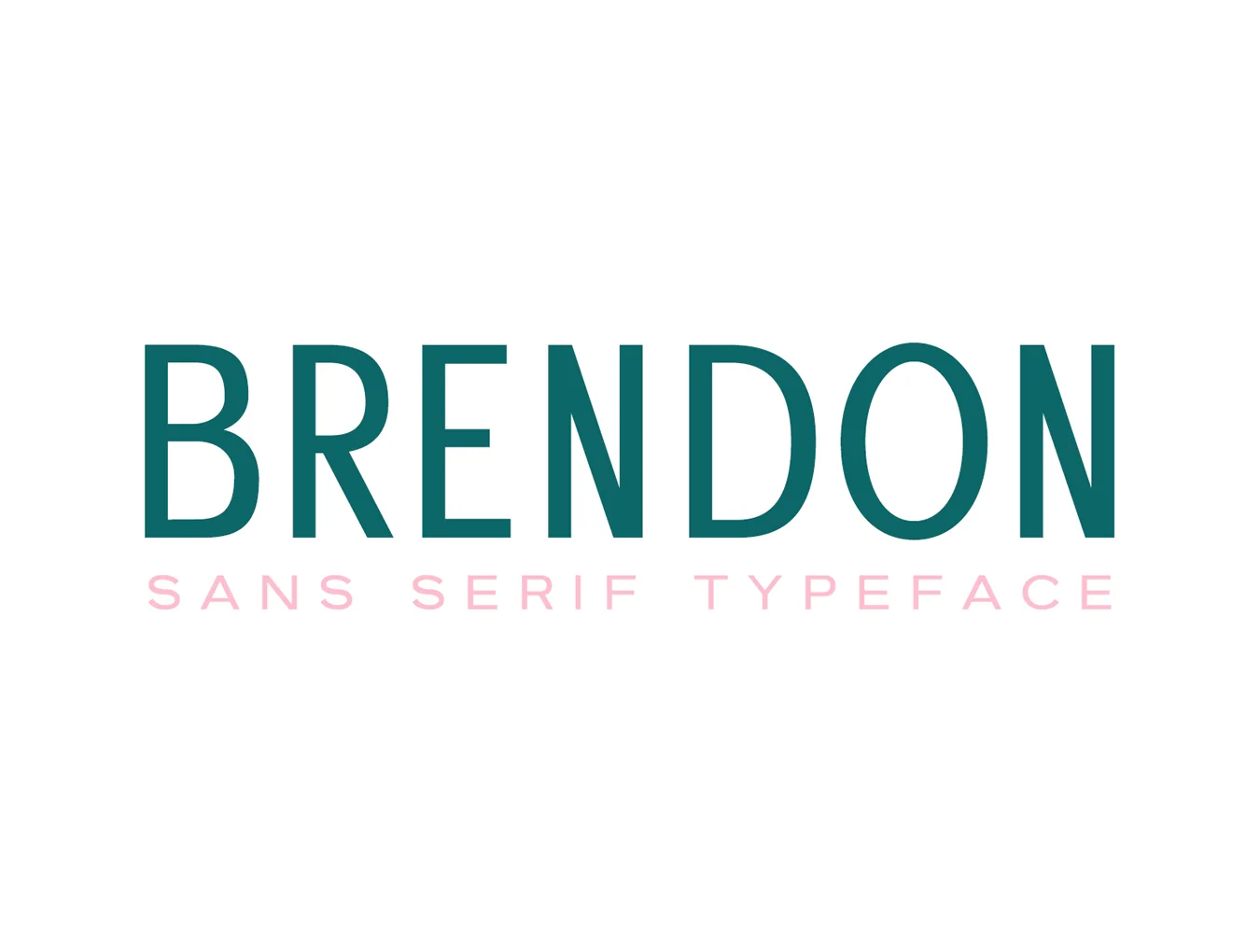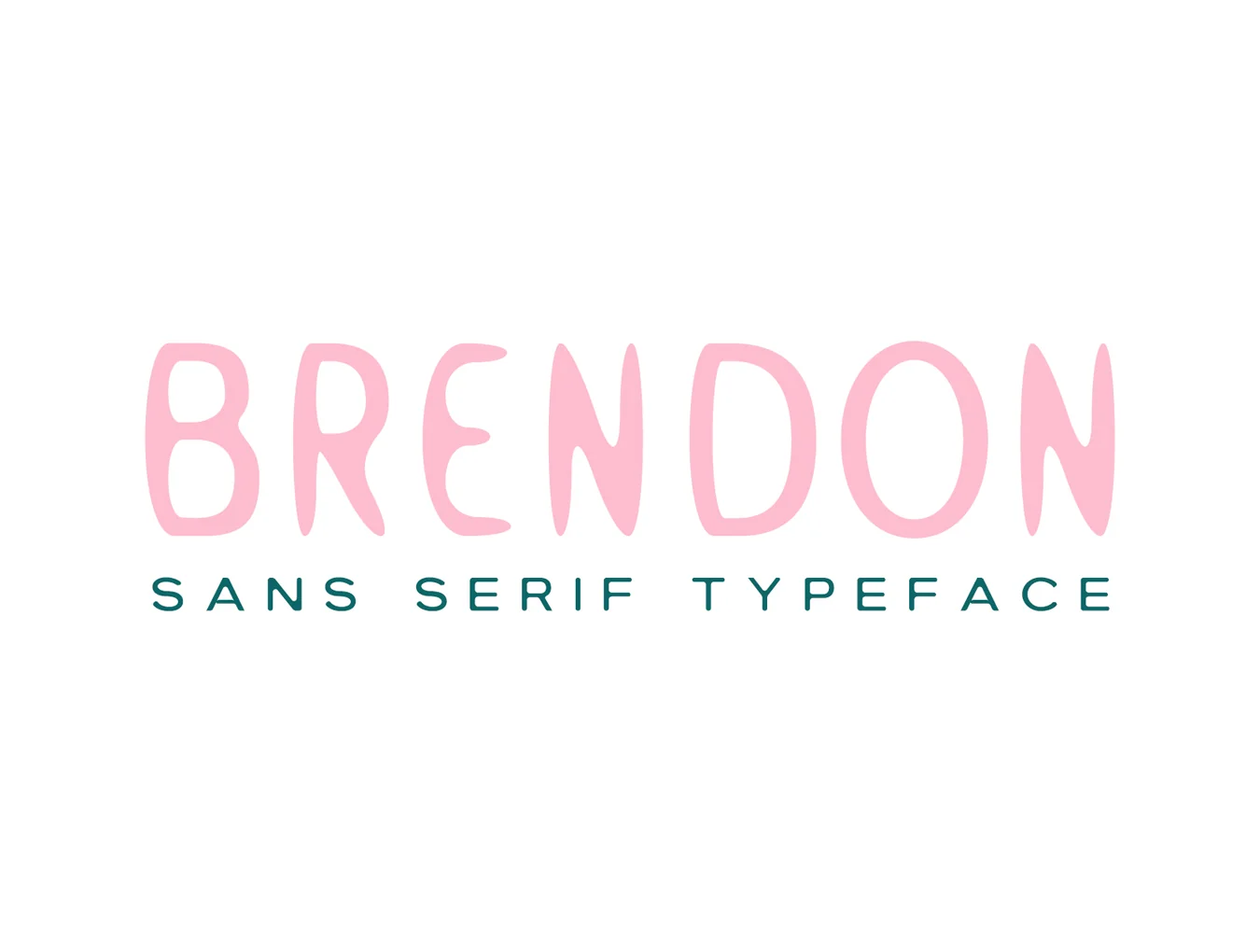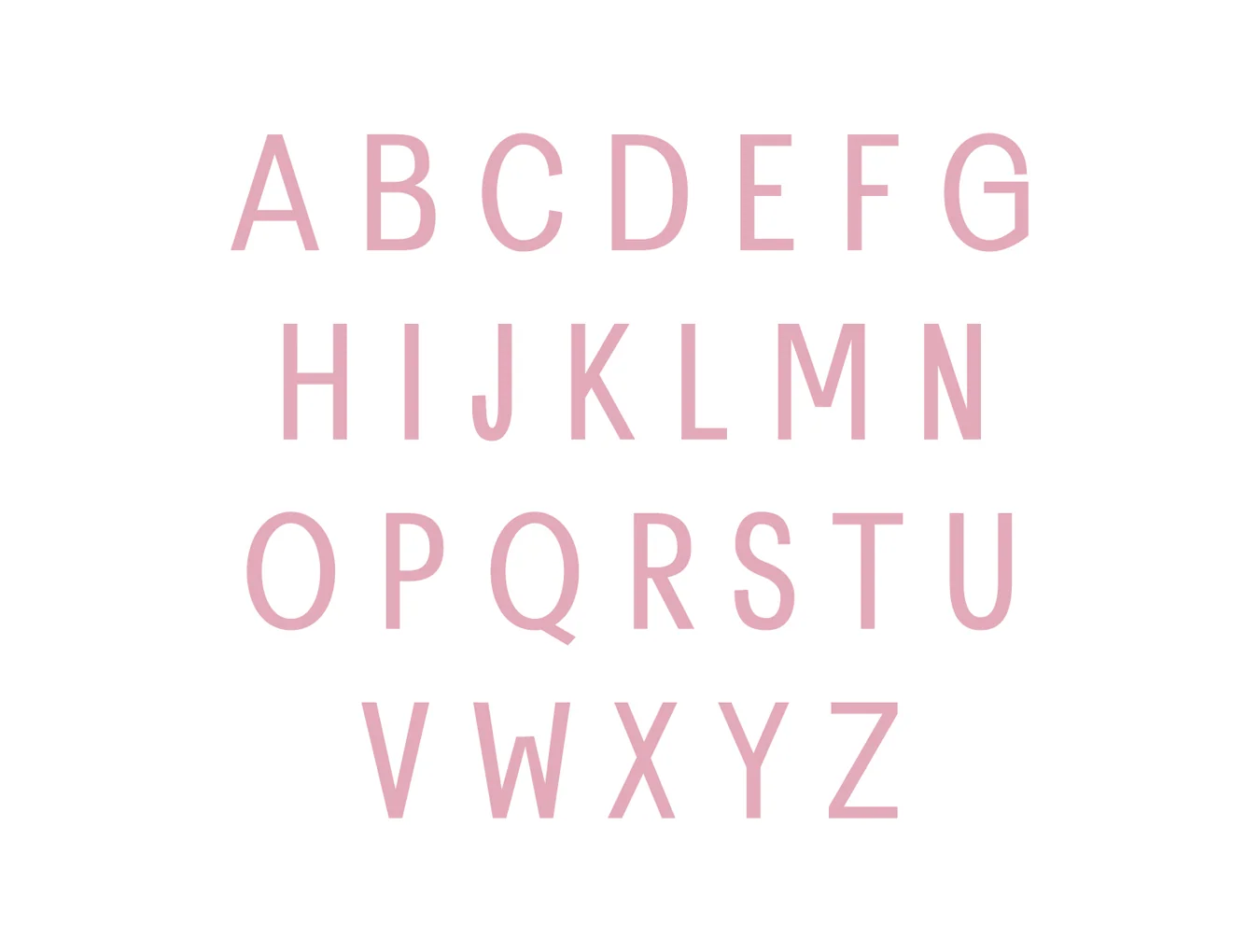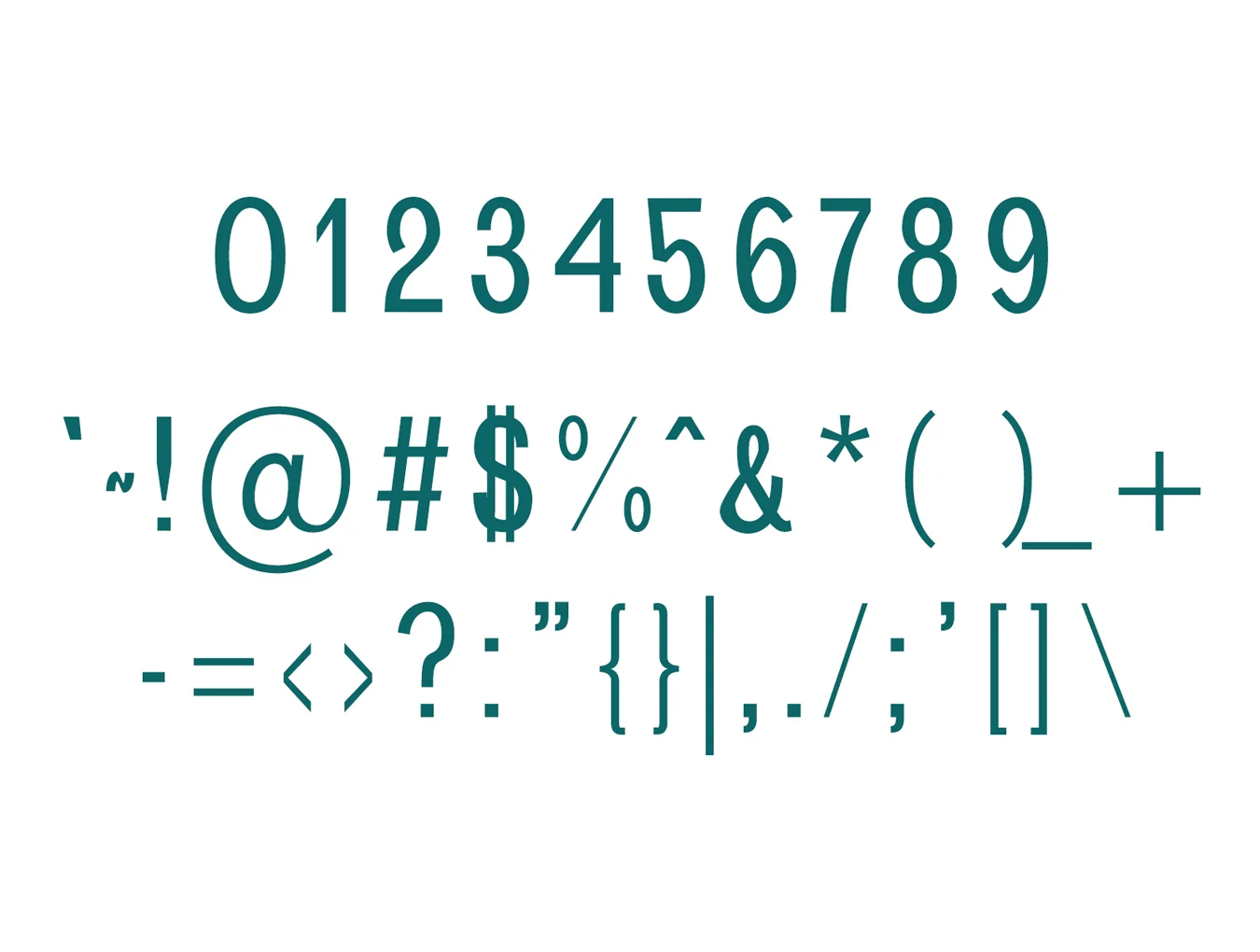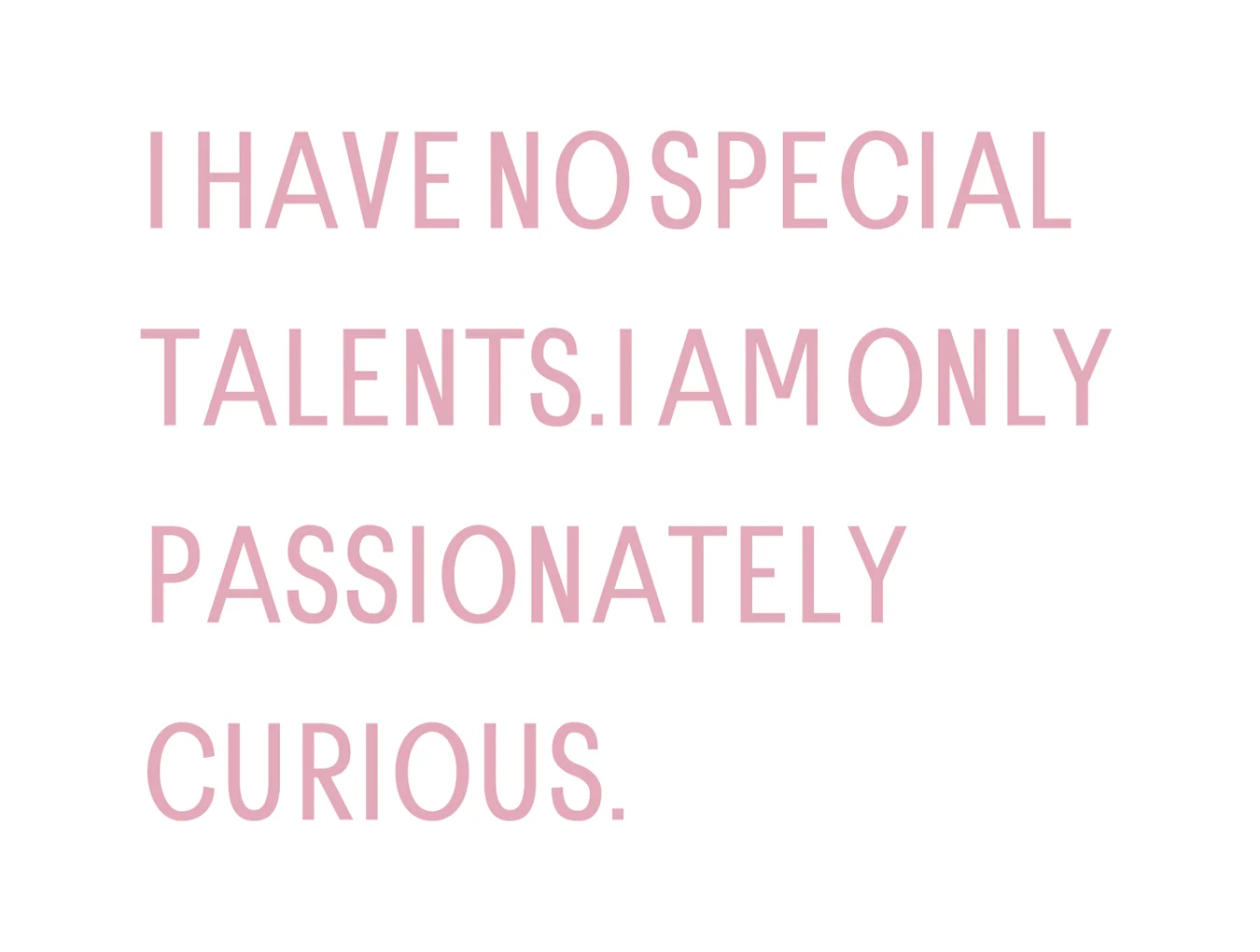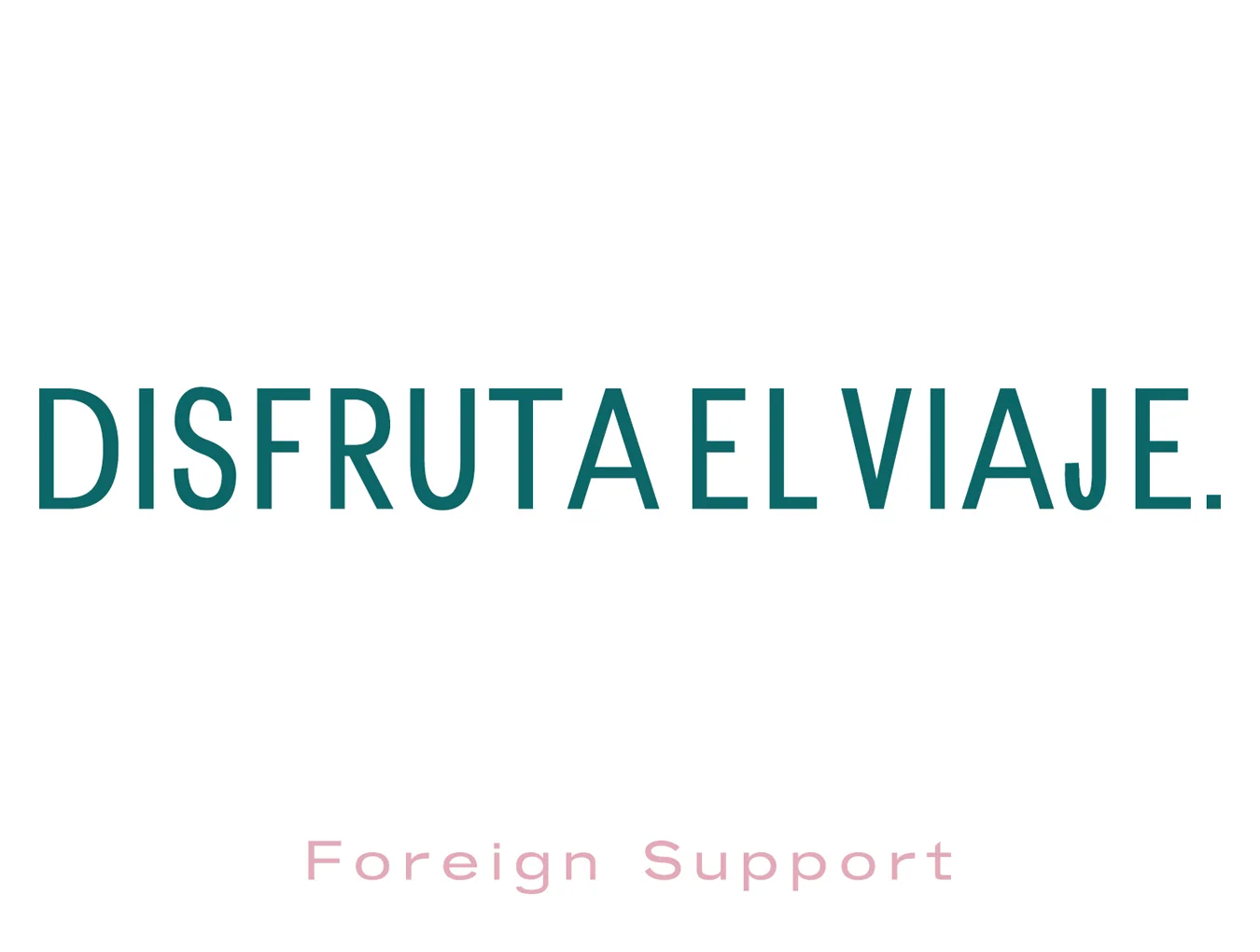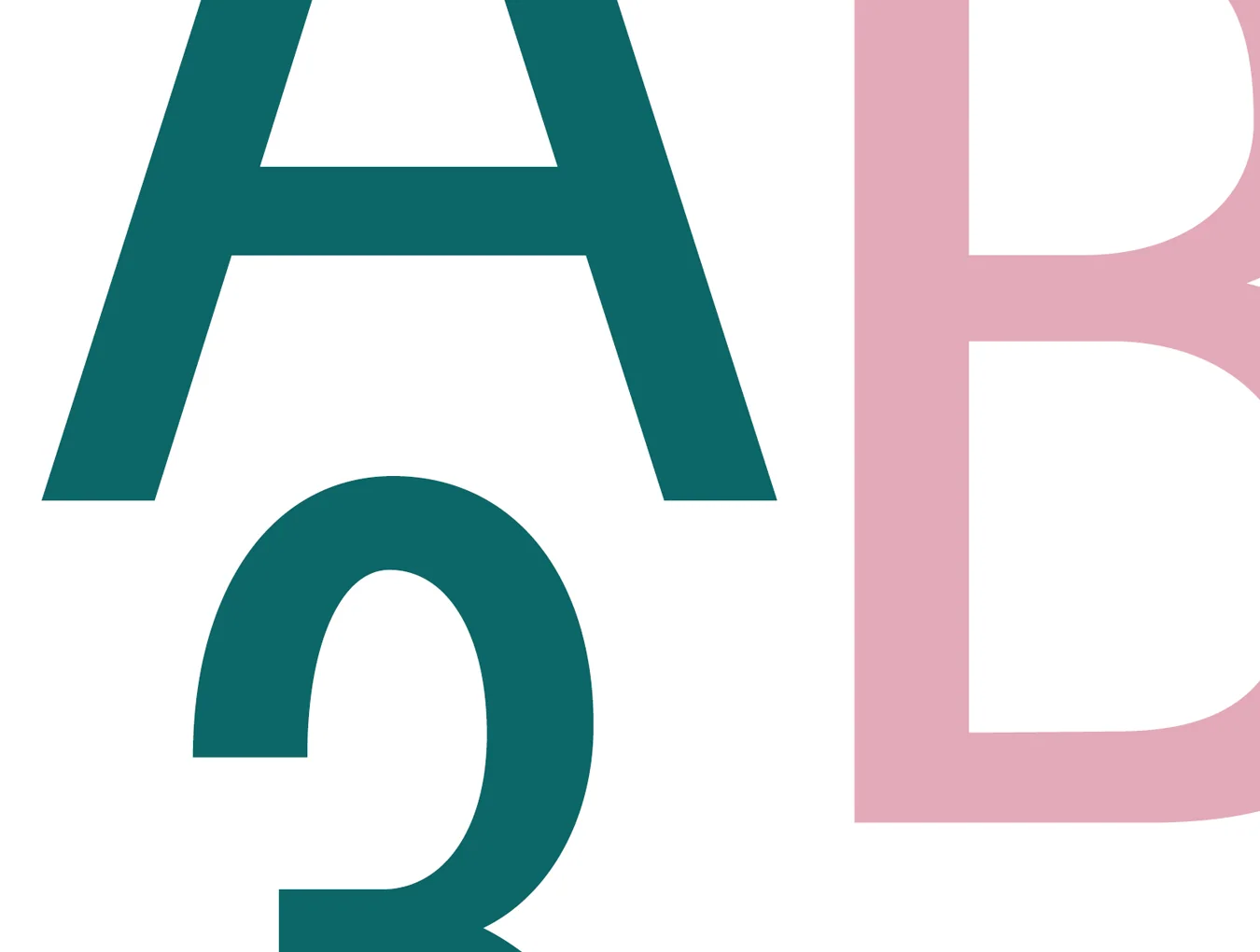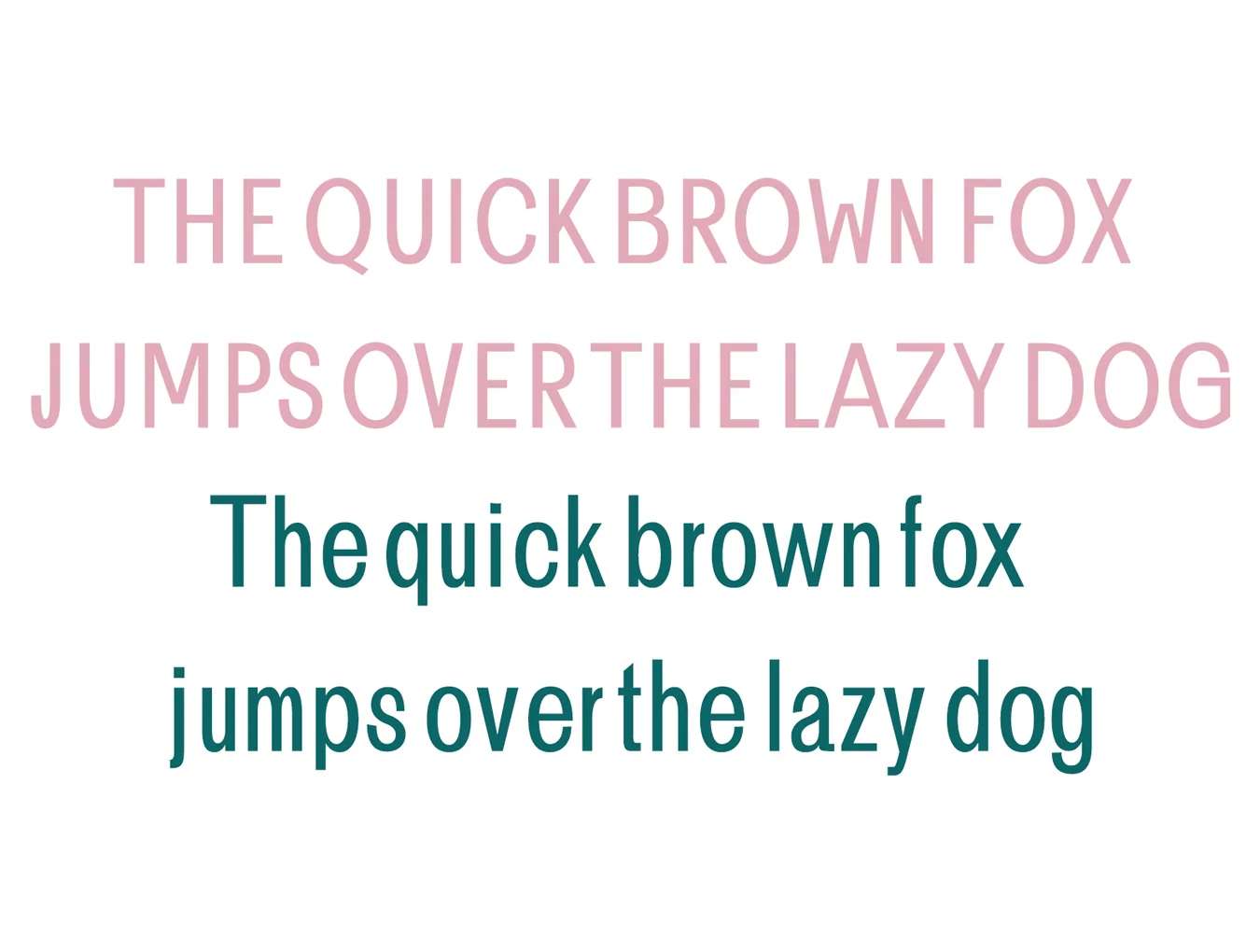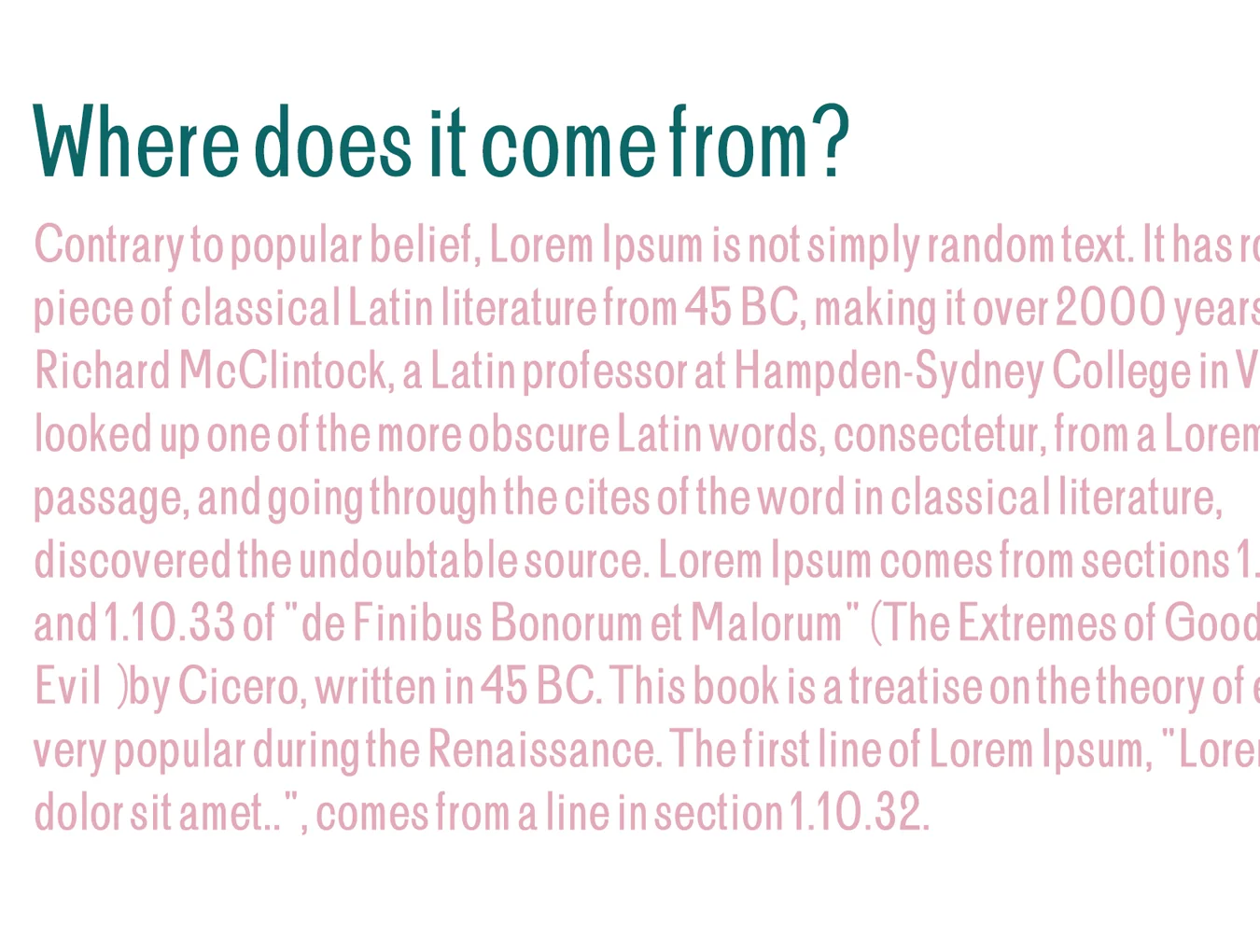
Brendon Sans Serif
Clean sans-serif font style
Set of 304 character glyphs
Regular, Light, and Smooth weight options
Brendon is a bold, striking sans serif typeface available in 3 weights. Ideal for text, presentations, posters, fashion, logos, branding, photography, invitations, magazines, ads, quotes, and business projects. Use all caps with wide spacing for elegance, or mix upper and lowercase for a timeless style.